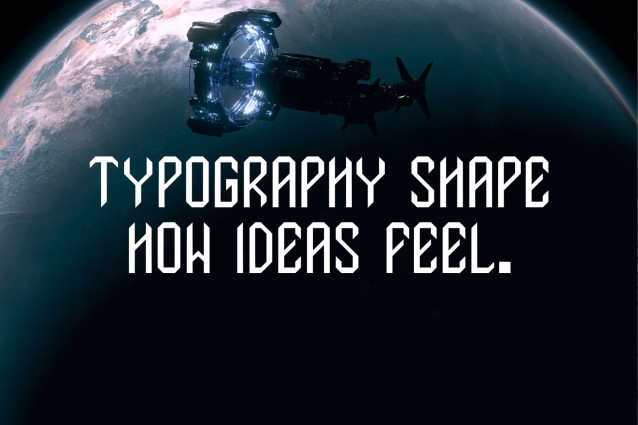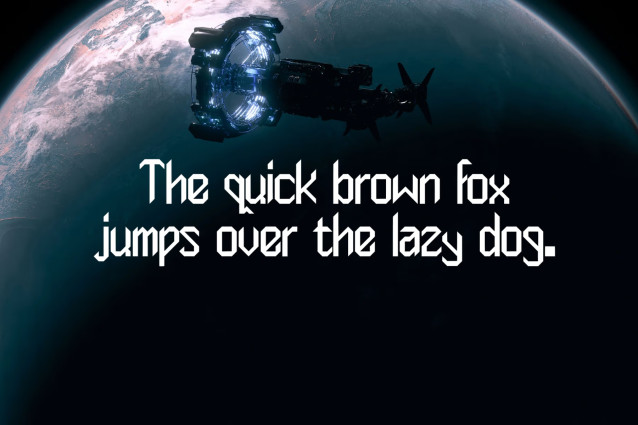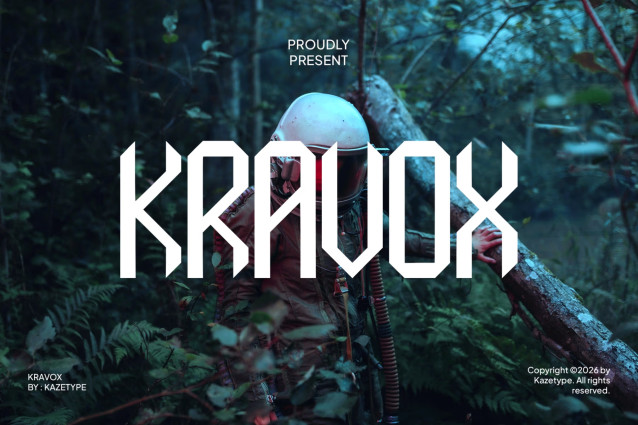
KRAVOX — Futuristic Sci-Fi Display Font
KRAVOX is a bold futuristic display typeface inspired by advanced technology, deep space exploration, cybernetic systems, and the unknown worlds beyond Earth.
Designed with sharp geometric structures and aggressive angular forms, KRAVOX creates a powerful visual identity that feels modern, technological, and cinematic. Its distinctive shapes bring a strong sci-fi atmosphere, making it perfect for futuristic branding, gaming titles, movie posters, technology projects, and experimental designs.
With its unique character design, KRAVOX delivers a balance between mechanical precision and futuristic imagination, creating a strong presence wherever it is applied.
Perfect for designers looking to create a futuristic, mysterious, and high-impact visual experience.